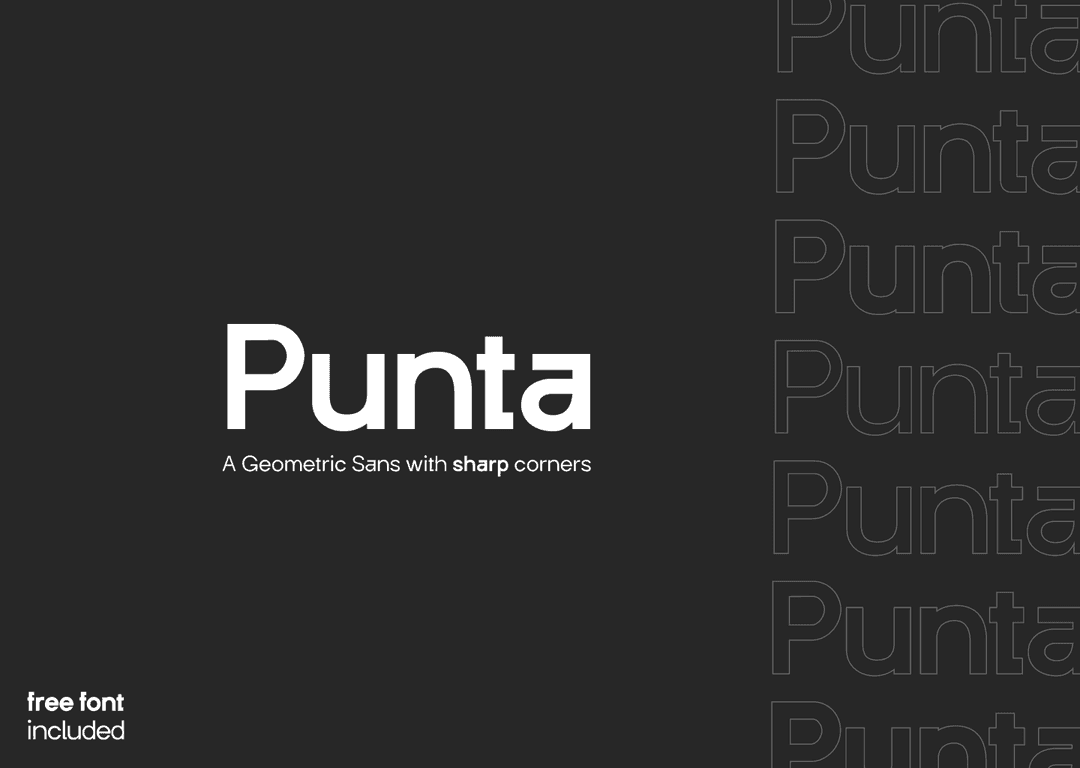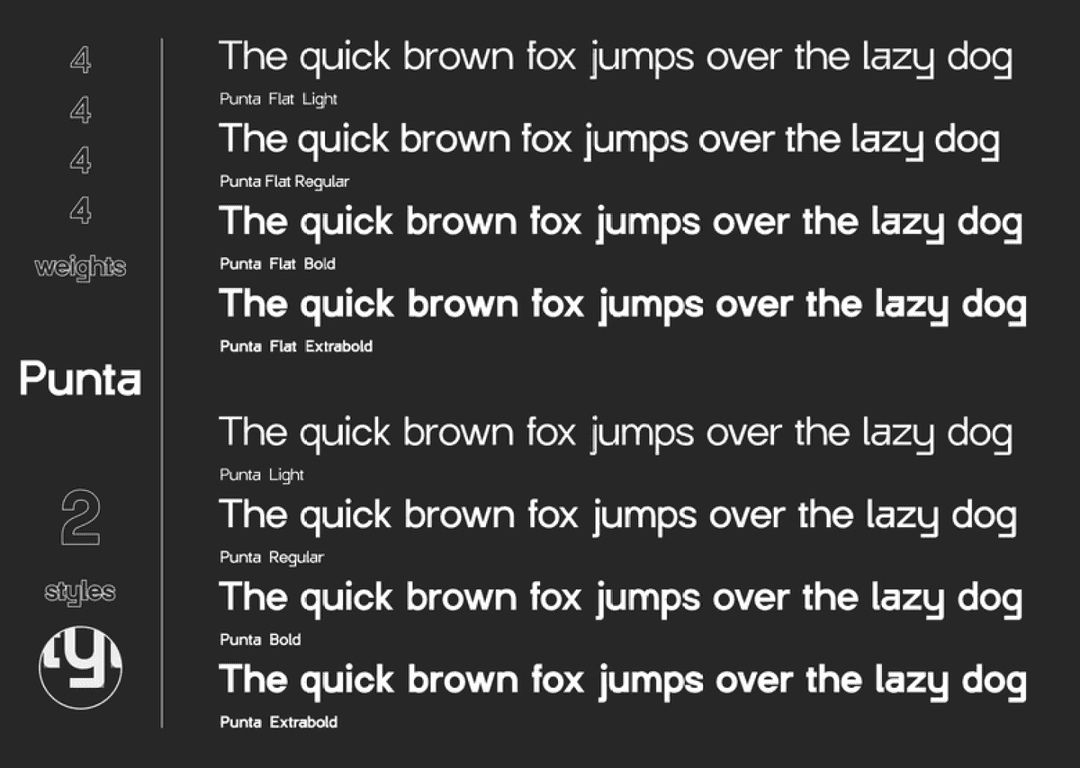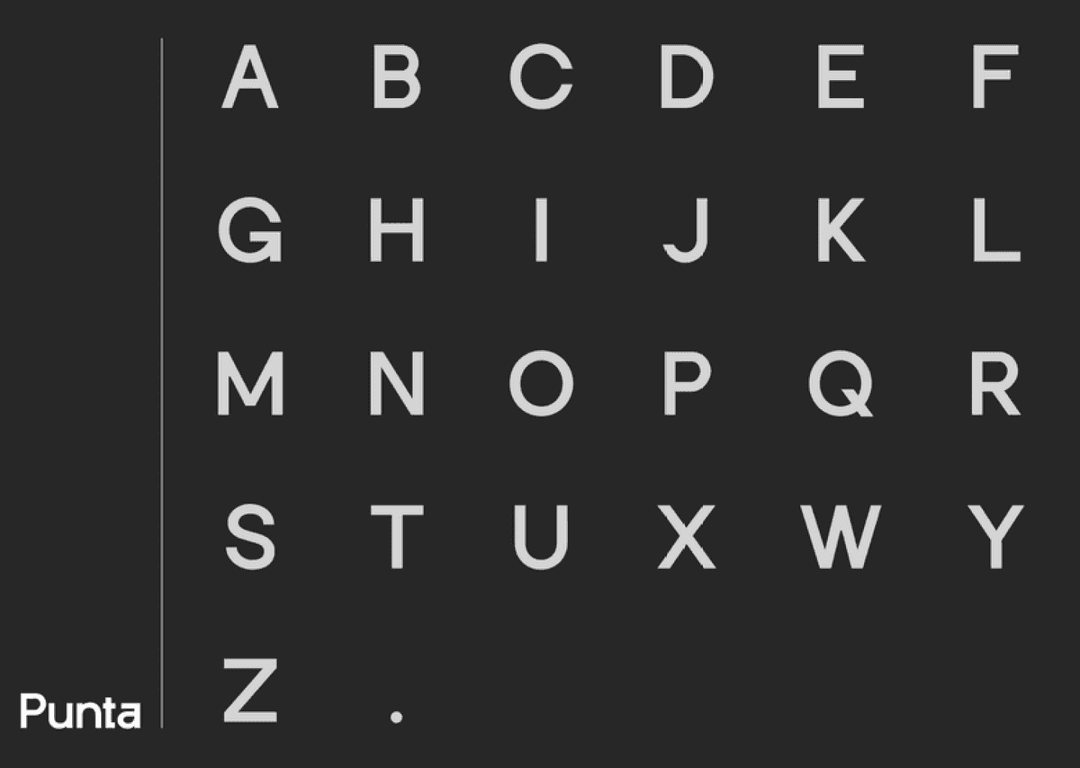
Discover Punta Geometric Sans Serif Font, part of the Sans Serif Basic collection—a versatile and unique font perfect for adding a personal touch to your projects. Download it for free and enjoy crafting designs with style, from invitations to social media posts. This font is available exclusively for personal use, giving you the freedom to create without limits. Unlock your creativity with Punta Geometric Sans Serif Font today!
Punta is a refined yet modest sans serif font that finally screams loud about its existence. An excellent font for various uses because of its clean design, Dunklem may just be the font you’ll be using most often!